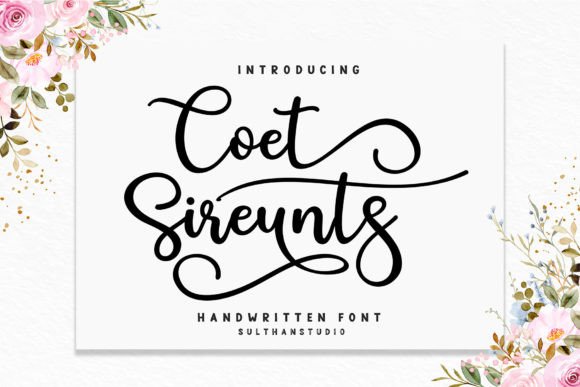
Embrace the allure of Coet Sireunts, a stunning script font crafted with a modern twist. Its thick, bold strokes exude elegance and finesse, making it the perfect choice for those seeking distinctive typography. Unleash your creativity and let Coet Sireunts add a touch of charm to your projects, whether it's for crafting personalized T-shirts, creating eye-catching stickers, designing captivating magazine covers, or composing captivating titles.
Coet Sireunts is your ultimate companion for making a statement. Its distinctive character adds a touch of sophistication to wedding invitations, making every hashtag and message a work of art. Its versatility extends beyond the digital realm, as it beautifully adorns physical products, transforming ordinary items into extraordinary keepsakes.
Experience the beauty of Coet Sireunts today and let your imagination soar. Its combination of elegance and modernity will elevate your designs and leave a lasting impression on your audience. Embrace the power of Coet Sireunts and let your creativity shine!